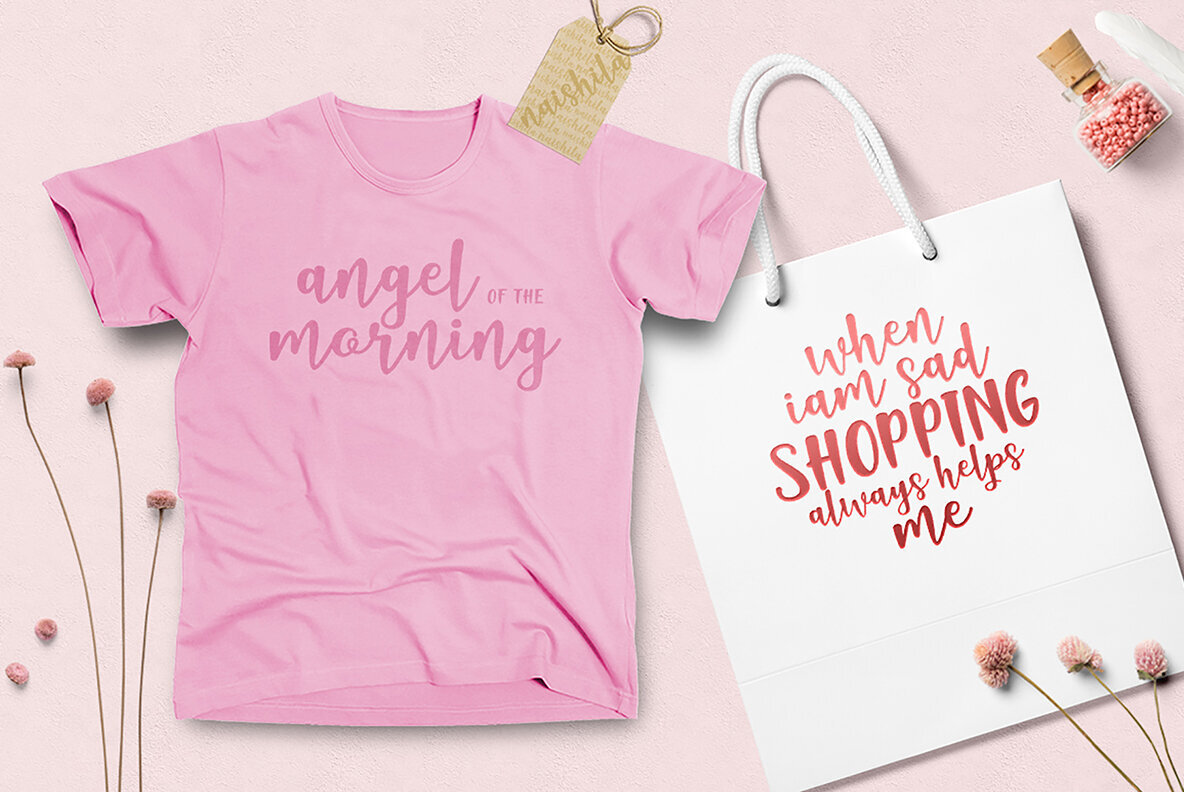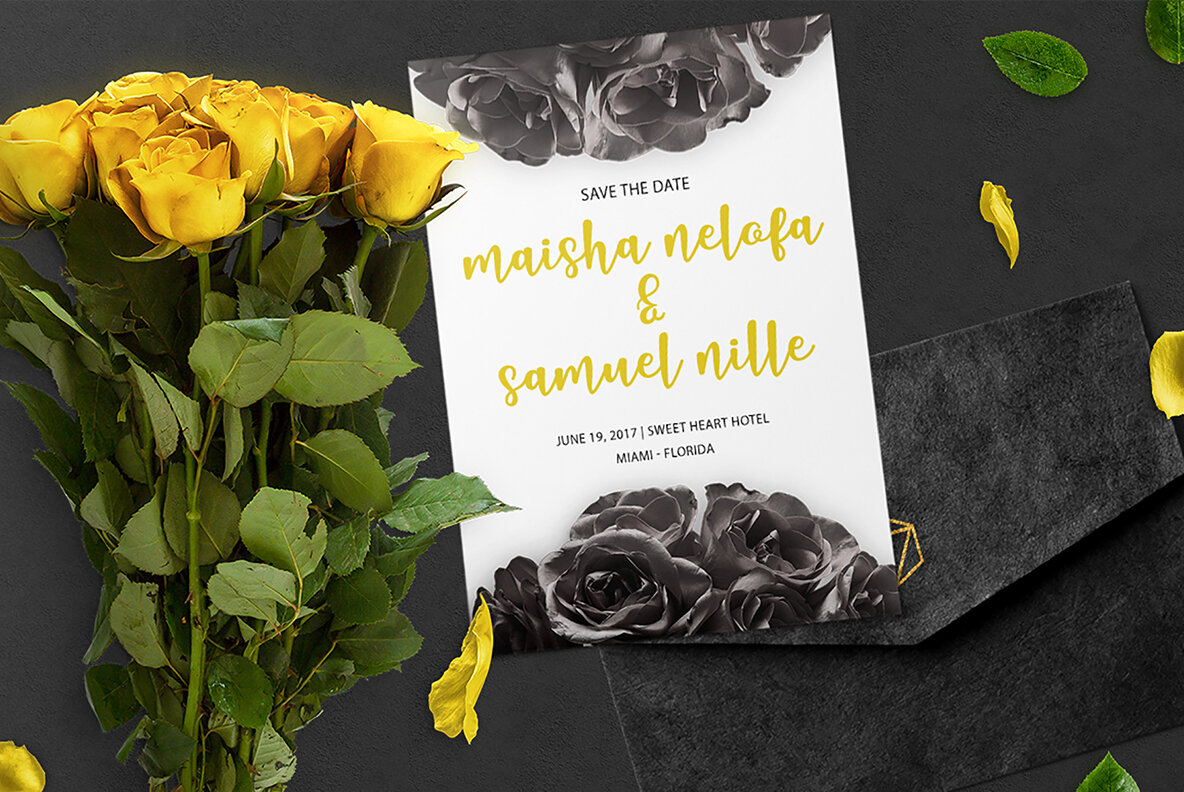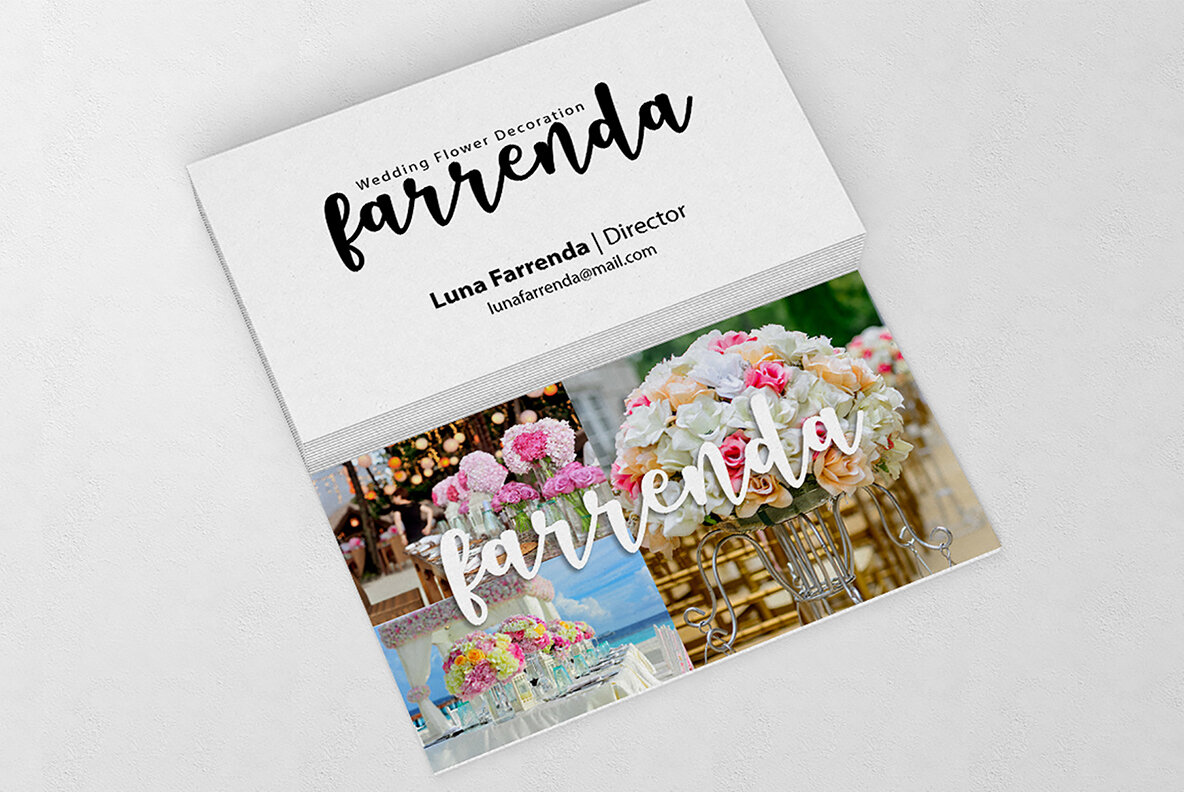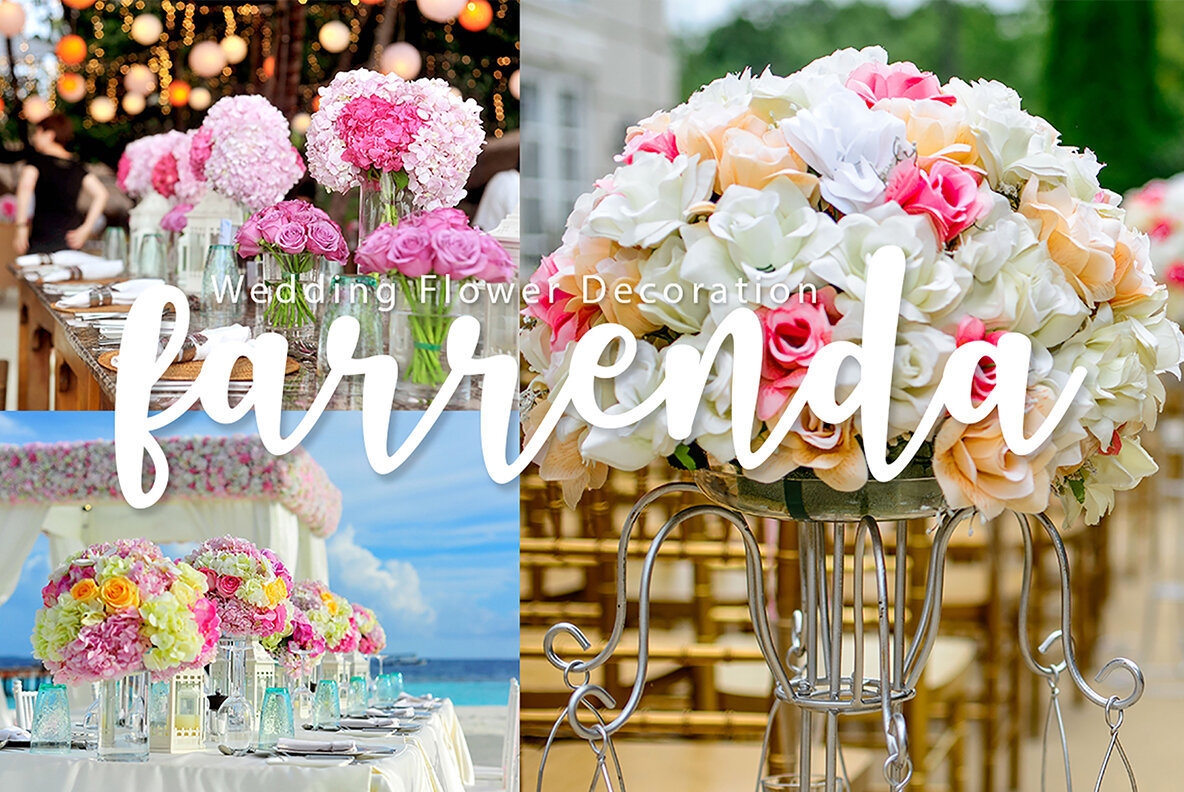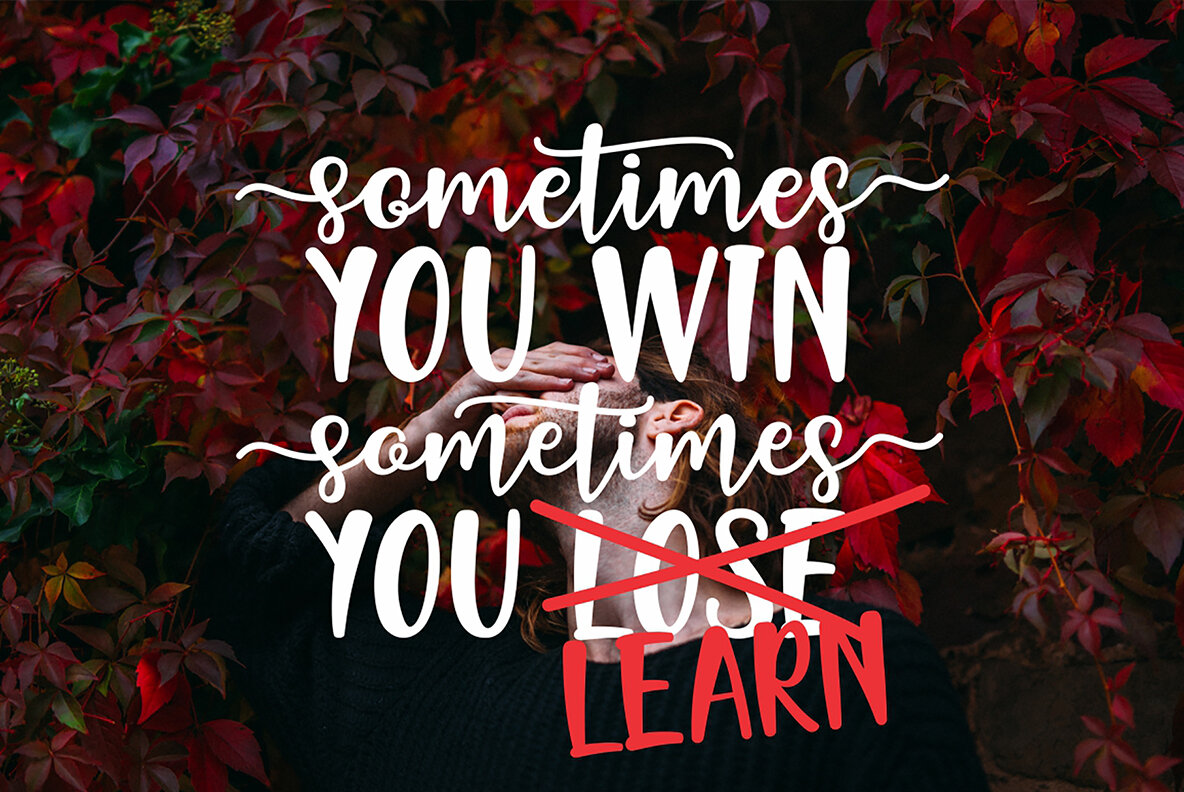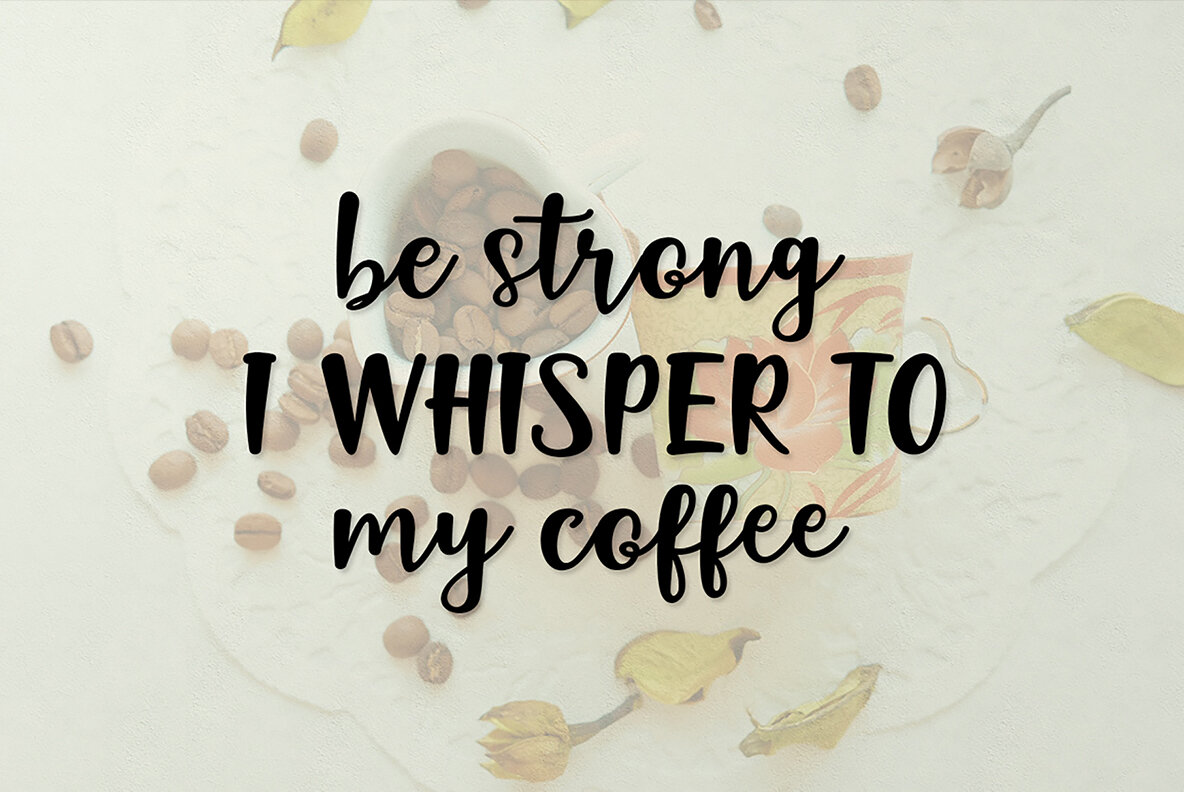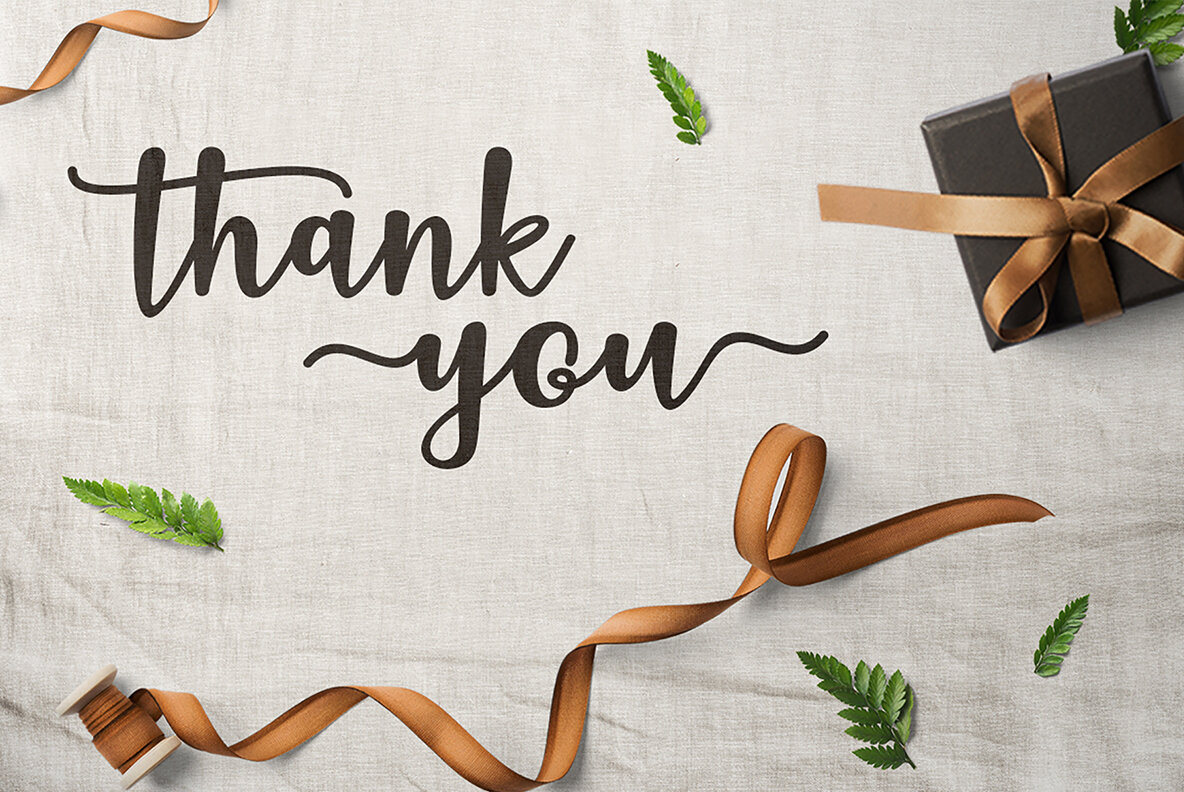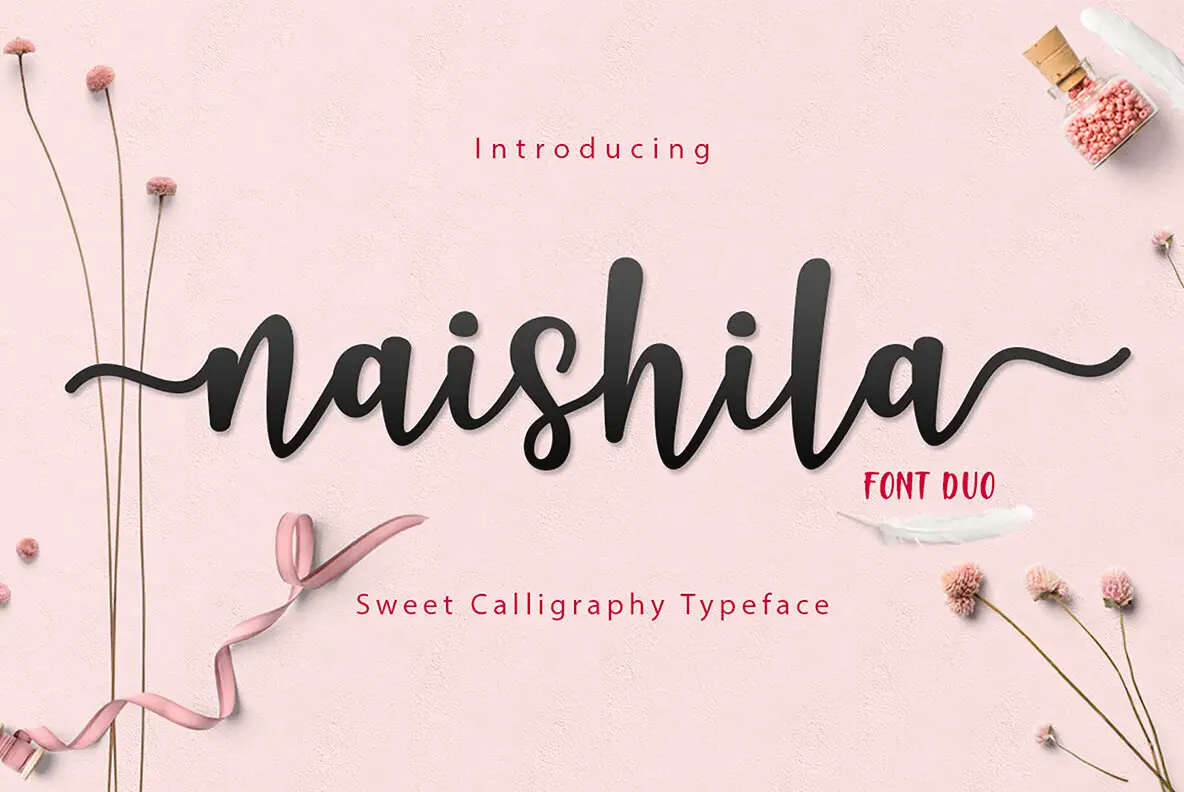
Naishila Font
Naishila by FadeLine Studio offers a charming blend of style and sweetness in a delightful font duo. Featuring both a lively script with a dynamic baseline and a regular caps version, Naishila is perfect for a variety of design needs. The script is enriched with stylistic sets and ligatures, making it versatile and easy to customize for any creative project. Whether you're crafting invitations, branding materials, or apparel, Naishila ensures your designs stand out. Its complete character set, including multilingual support, makes it accessible for various projects, from greeting cards to book covers. The inclusion of ligatures and alternative stylistic sets offers even more creative freedom. Embrace the playful elegance of Naishila and elevate your design projects with ease.Naishila Font Duo